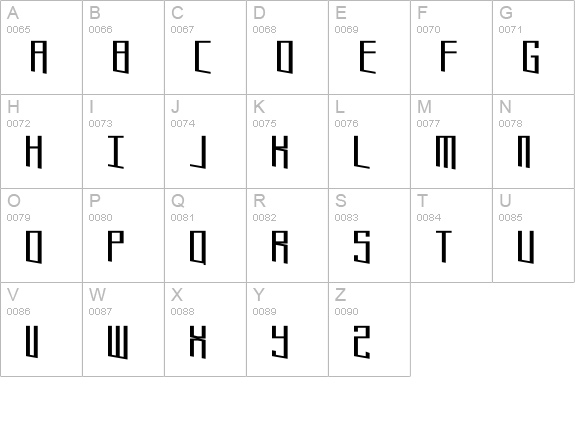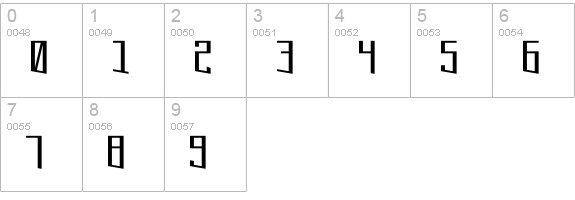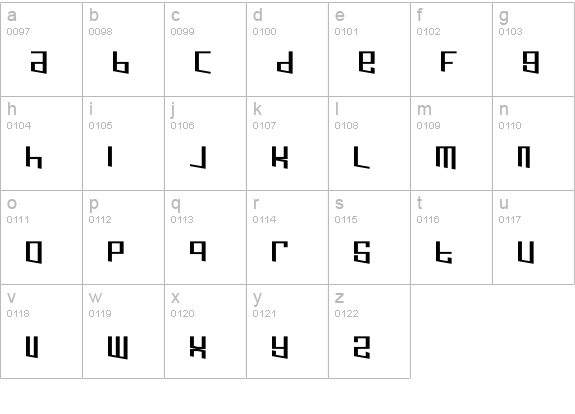
ExtremeRefresh Font Details
Introducing ExtremeRefresh font, a dynamic and versatile typeface that exudes a sense of energy and modernity. With sleek lines and bold letterforms, this font is perfect for making a statement in your designs. Whether you're working on a poster, logo, or website, ExtremeRefresh font will help you stand out from the crowd. The best part? ExtremeRefresh font is completely free to download at FontsMarket.com. Yes, you read that right - you can elevate your design projects with this striking font without spending a dime. Don't miss out on this opportunity to add a touch of excitement and style to your work with ExtremeRefresh font. Download it now and let your creativity soar!